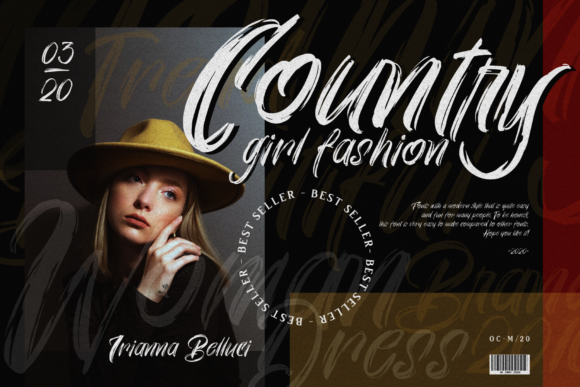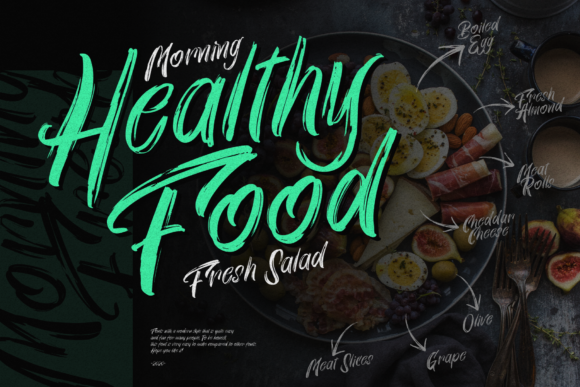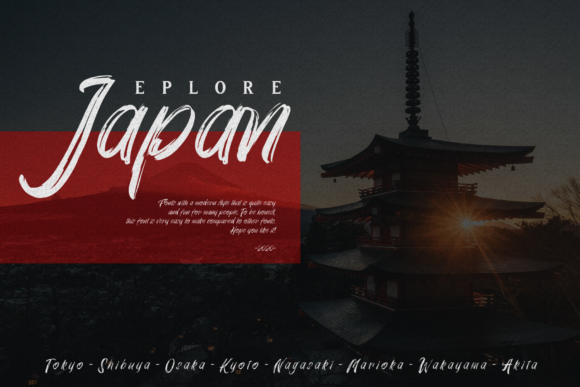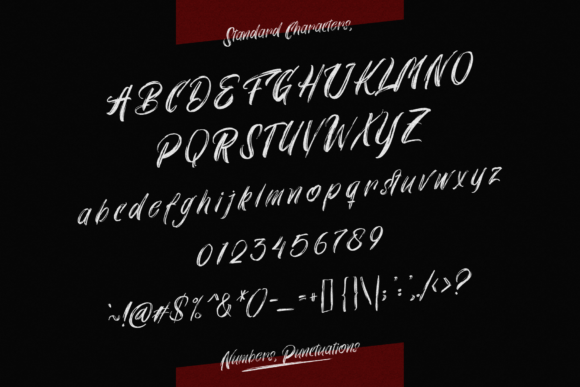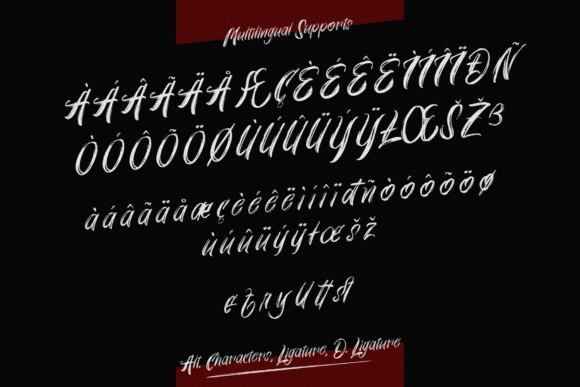
The Bluezingham Font: A Casual, Fun Script for Creative Projects
I’ll never forget the moment I stumbled upon the perfect font for a client’s branding project. I had been searching for hours, trying out different fonts, but none seemed to fit the vibe I was going for. That was until I discovered Bluezingham – a casual, fun script font that instantly caught my attention. In this article, I’ll share my experience with Bluezingham, its features, and how to make the most of it in your creative projects.
An Honest Review of Bluezingham
So, what makes Bluezingham special? Here are some things I love about this font:
- ✨ Clean and quirky design that’s perfect for logos, branding, and social media
- ✅ Easy to read, even at smaller font sizes
- 💫 Supports OpenType features, glyphs, and stylistic alternates for added versatility
- 🎨 Created with a brush pen, giving it a unique, hand-drawn feel
While Bluezingham is an excellent font, it’s not without its quirks. Here are a few things to keep in mind:
- 🤔 Some characters may not work well in all contexts, such as the ‘fi’ ligature
- ⚠️ Limited language support, so it’s best suited for English or similar languages
The Story Behind Bluezingham
Bluezingham was designed with the intention of creating a casual, fun script font that would be perfect for creative projects. The designer wanted to create a font that felt approachable and friendly, while still being versatile enough to use in a variety of contexts.
| Author | ilhamtaro |
| What is Bluezingham best suited for? | Bluezingham is perfect for logos, branding, social media, and crafty DIY projects. |
| Is Bluezingham easy to read? | Yes, Bluezingham is designed to be easy to read, even at smaller font sizes. |
| Does Bluezingham support OpenType features? | Yes, Bluezingham supports OpenType features, glyphs, and stylistic alternates. |
Overall, Bluezingham is a fantastic font that’s perfect for creative projects. Its unique blend of cleanliness and quirkiness makes it a standout in any design.